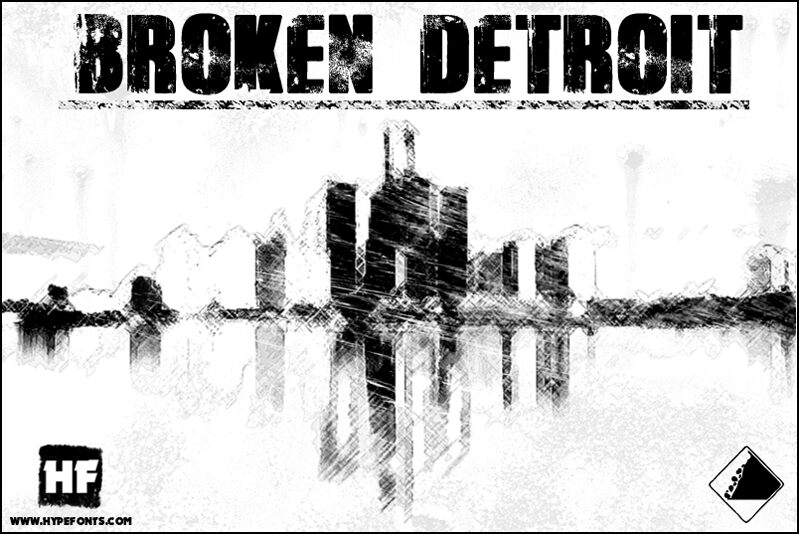
Broken Detroit by Guilhem Greco is a free eroded display font with towering, narrow capitals and blunt industrial shapes. Broad white scars cut through a field of finer flecks.
Creating a battered urban sign is its strongest visual role, making it apt for music posters, game title screens, and venue graphics built around industrial decay. Album covers and streetwear graphics tap the same scraped-paint texture, linking music, fashion, and entertainment through imagery of concrete and hard-used machinery.